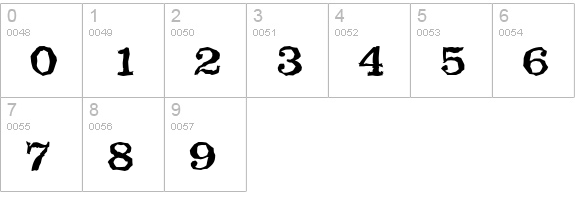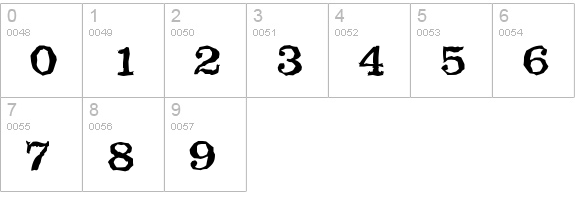
ClareRandom-Medium Font Details
ClareRandom-Medium is a balanced, medium-weight variant in the ClareRandom typeface family \xE2\x80\x94 well suited to sub-headlines, navigation, and balanced editorial work.
ClareRandom-Medium font is a stylish and versatile typeface that strikes the perfect balance between elegance and readability. Its unique design features a charming mix of rounded edges and sharp angles, creating a sophisticated yet approachable look. This font is ideal for a wide range of design projects, from branding and packaging to social media graphics and editorial layouts. What sets ClareRandom-Medium font apart is its ability to add a touch of creativity and personality to any design. Whether you're looking to create a modern and trendy vibe or a classic and timeless feel, this font has got you covered. With its medium weight, ClareRandom-Medium strikes the perfect balance between making a statement and maintaining readability. The best part is that ClareRandom-Medium font is available for free download at FontsMarket.com. So you can start using this eye-catching typeface in your projects without any cost or hassle. Don't miss out on the opportunity to elevate your designs with ClareRandom-Medium font today!